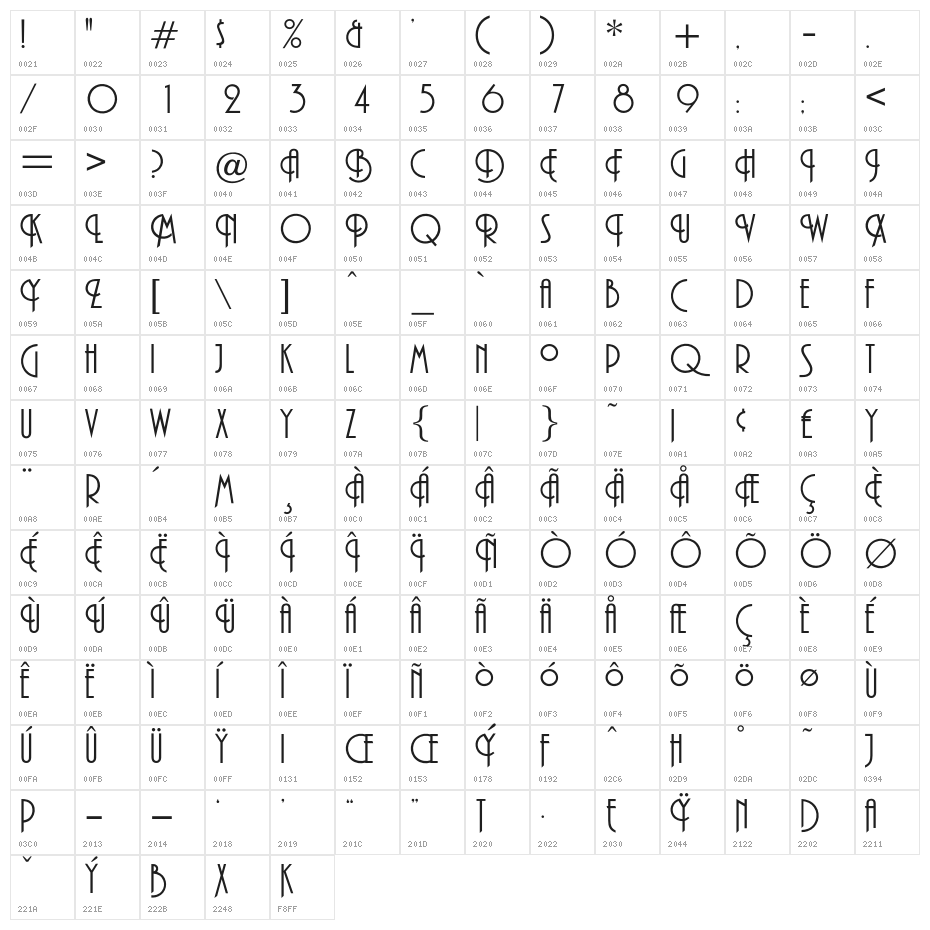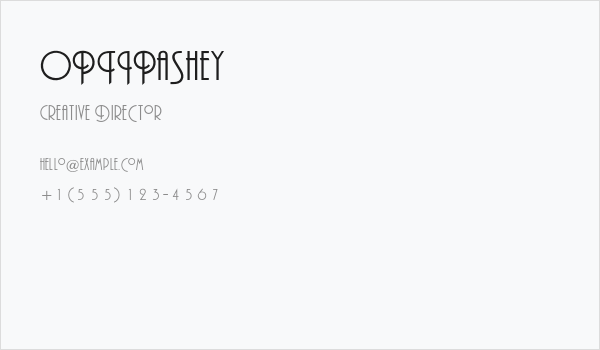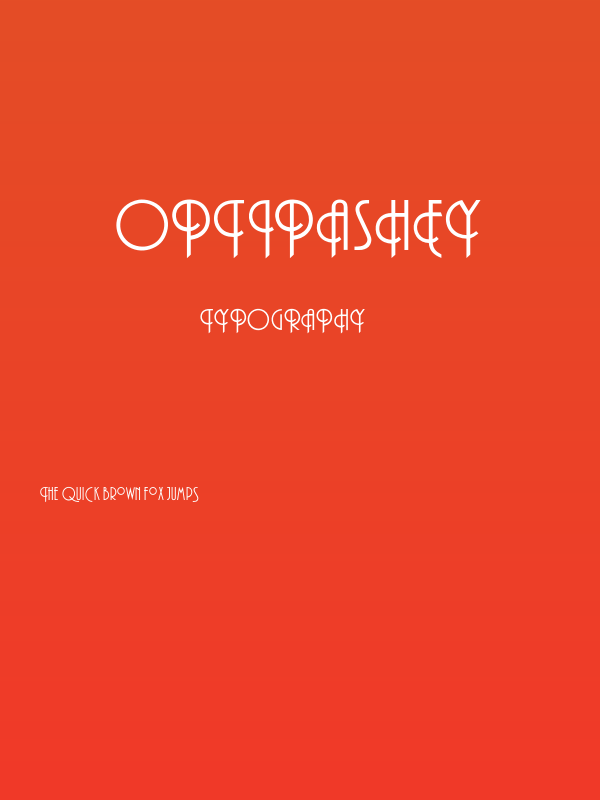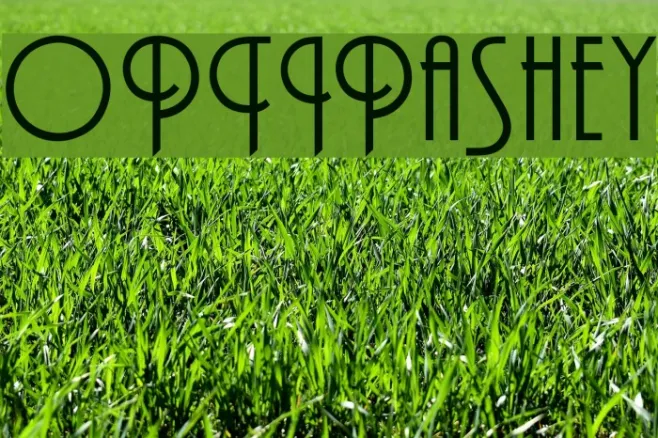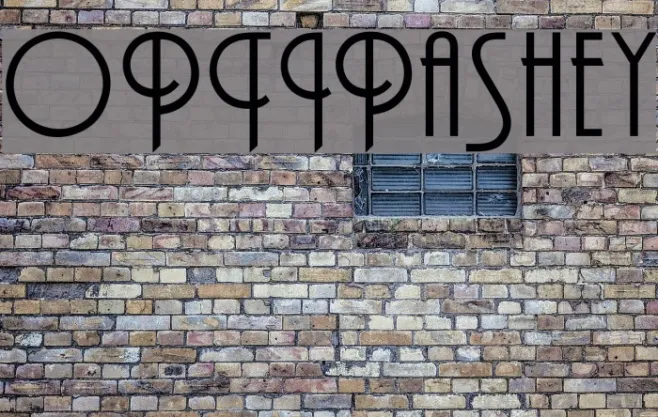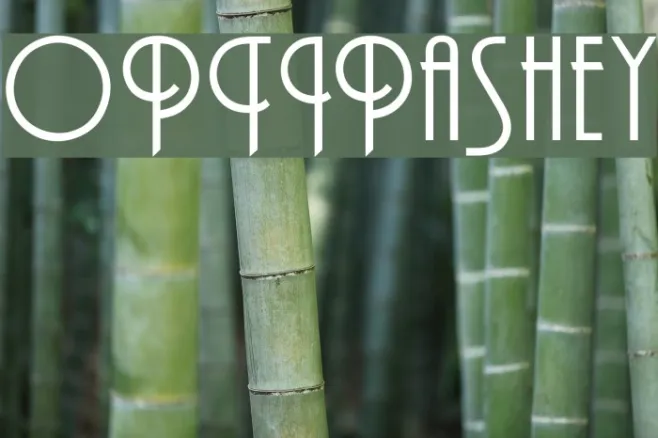
OPTIPashey Font
OPTIPashey Description
This font features a unique and artistic design with a blend of geometric and decorative elements. The uppercase letters are characterized by their tall, narrow forms with distinct curves and sharp angles, creating a sense of elegance and sophistication. The lowercase letters maintain a consistent style, offering a cohesive look across different text sizes. Numbers are clear and legible, with a modern twist that complements the overall aesthetic. Special characters are creatively designed, adding a touch of flair to the font. This font is ideal for projects that require a stylish and contemporary appearance.
| Proposed Projects | Ideal for branding, posters, invitations, and editorial design. |